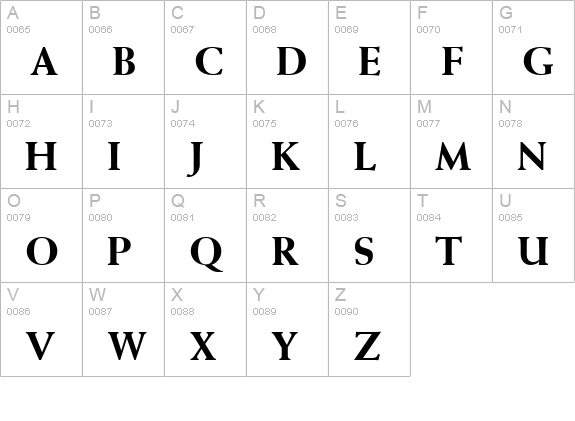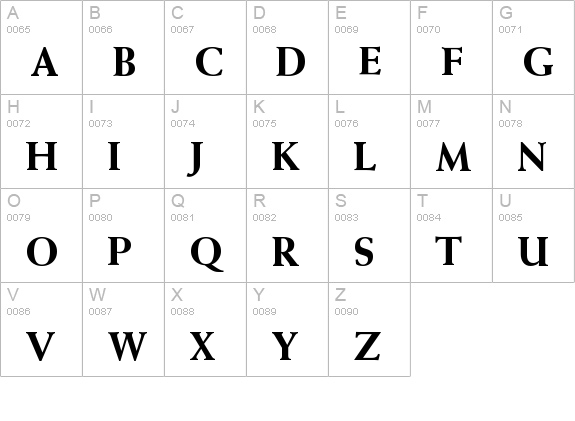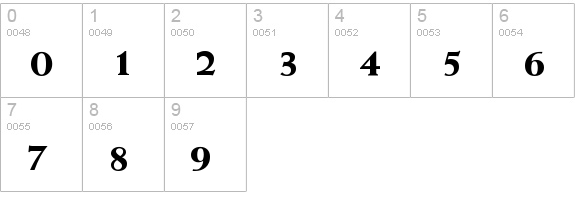
Missive Black SSi Extra Bold is a maximum-weight, dramatic variant in the Missive typeface family \xE2\x80\x94 well suited to maximum-impact headlines, posters, and packaging.
Missive Black SSi Extra Bold is a striking and powerful font that demands attention with its bold and commanding presence. Its sleek and modern design exudes confidence and professionalism, making it perfect for headlines, logos, and other design projects that require a bold statement. What makes Missive Black SSi Extra Bold even more appealing is that it is available for free download at FontsMarket.com. This means that you can easily access and use this impressive font without any cost, making it a valuable addition to your font collection. With its strong and impactful appearance, Missive Black SSi Extra Bold is sure to make a bold statement in any design project, capturing the attention of viewers and leaving a lasting impression. Download this font for free today and elevate your designs with its bold and stylish aesthetic.